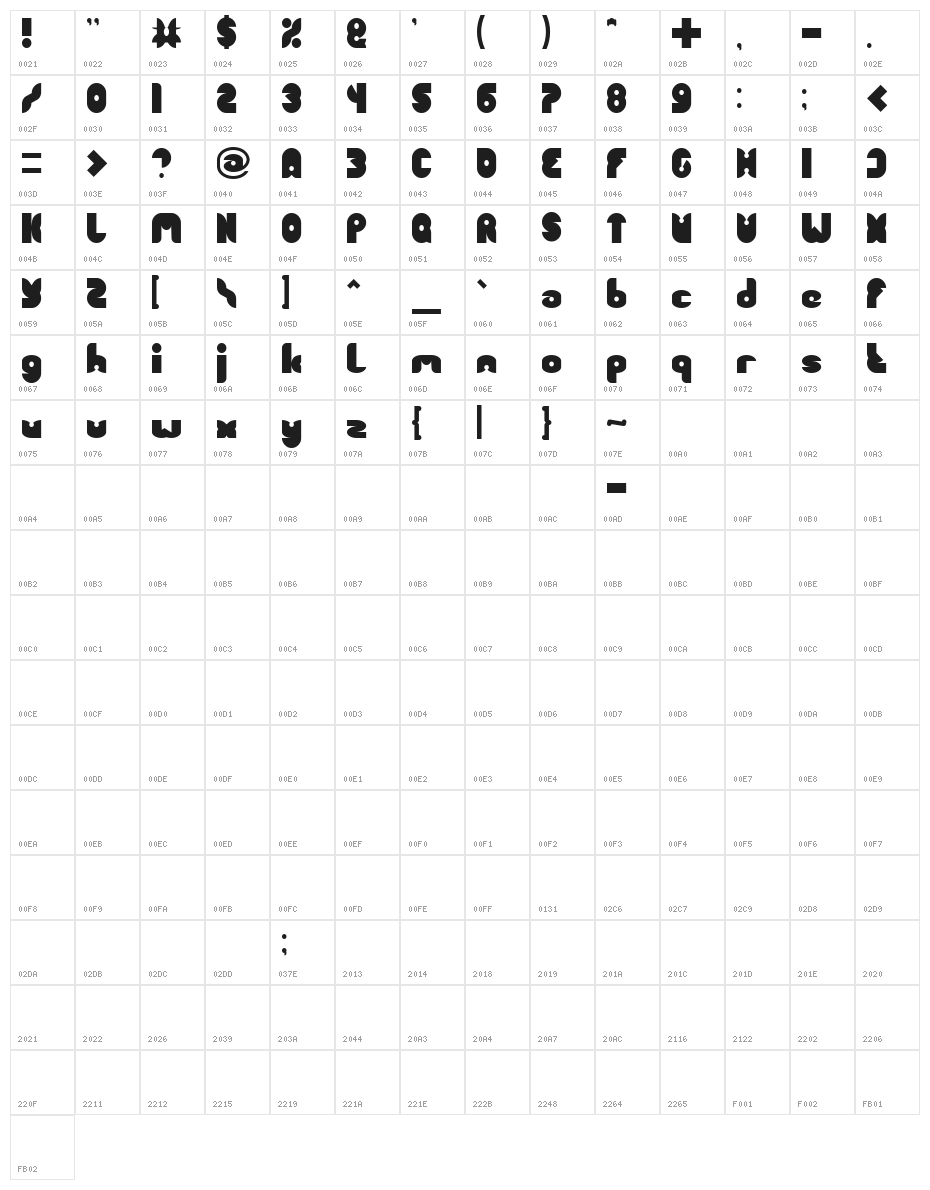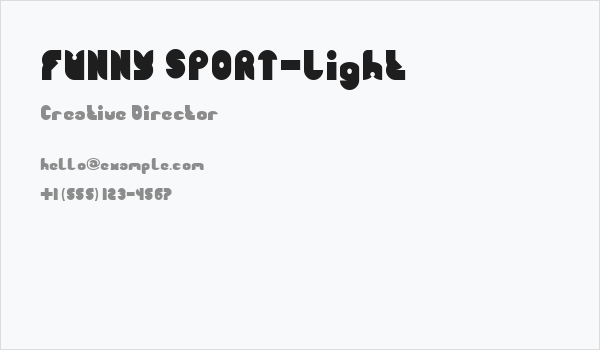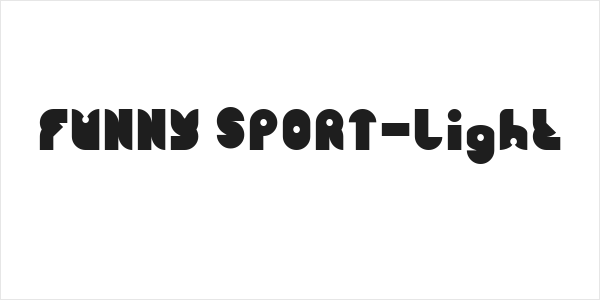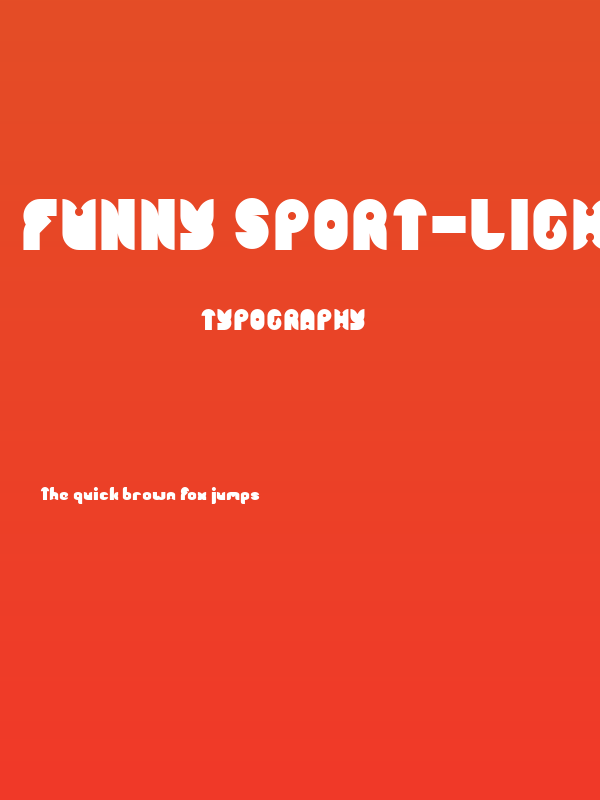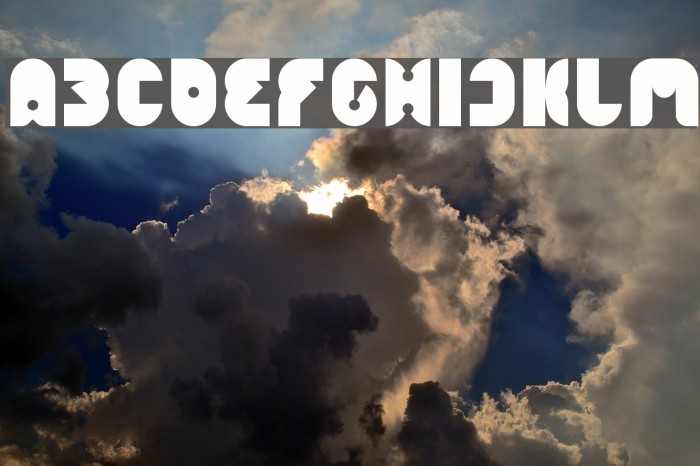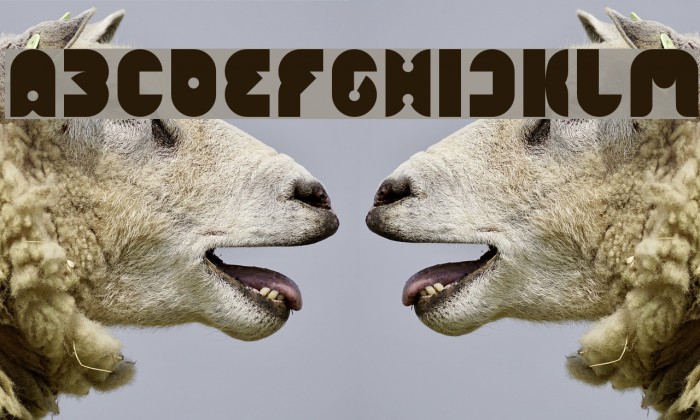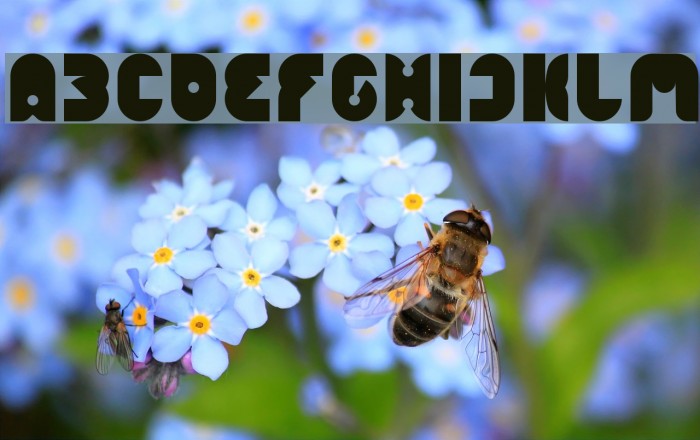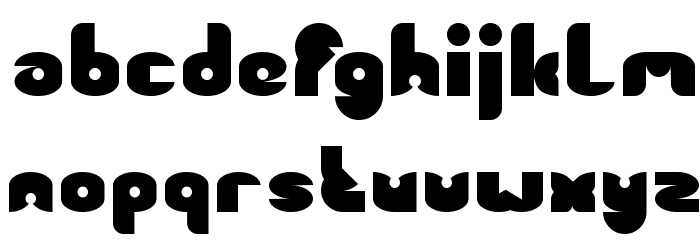
FUNNY SPORT-Light Font
FUNNY SPORT-Light Description
This font features a bold and playful design with a distinctly modern and geometric aesthetic. The characters are rounded and thick, creating a strong visual impact. The uppercase and lowercase letters maintain a consistent style, with unique curves and angles that add a sense of fun and creativity. The numbers and special characters are equally bold, ensuring uniformity across all elements. This font is ideal for projects that require a lively and eye-catching typeface.
| Proposed Projects | Perfect for branding, posters, children's books, and any design that needs a fun and bold typeface. |